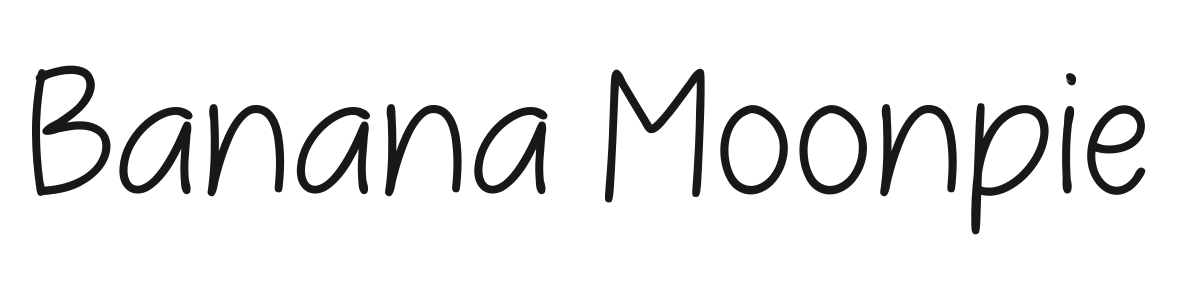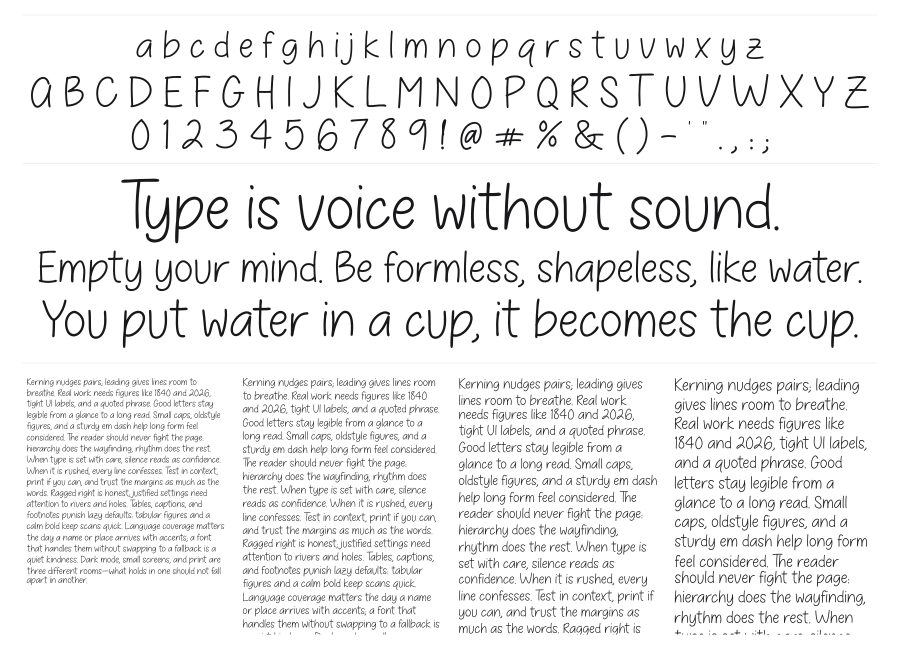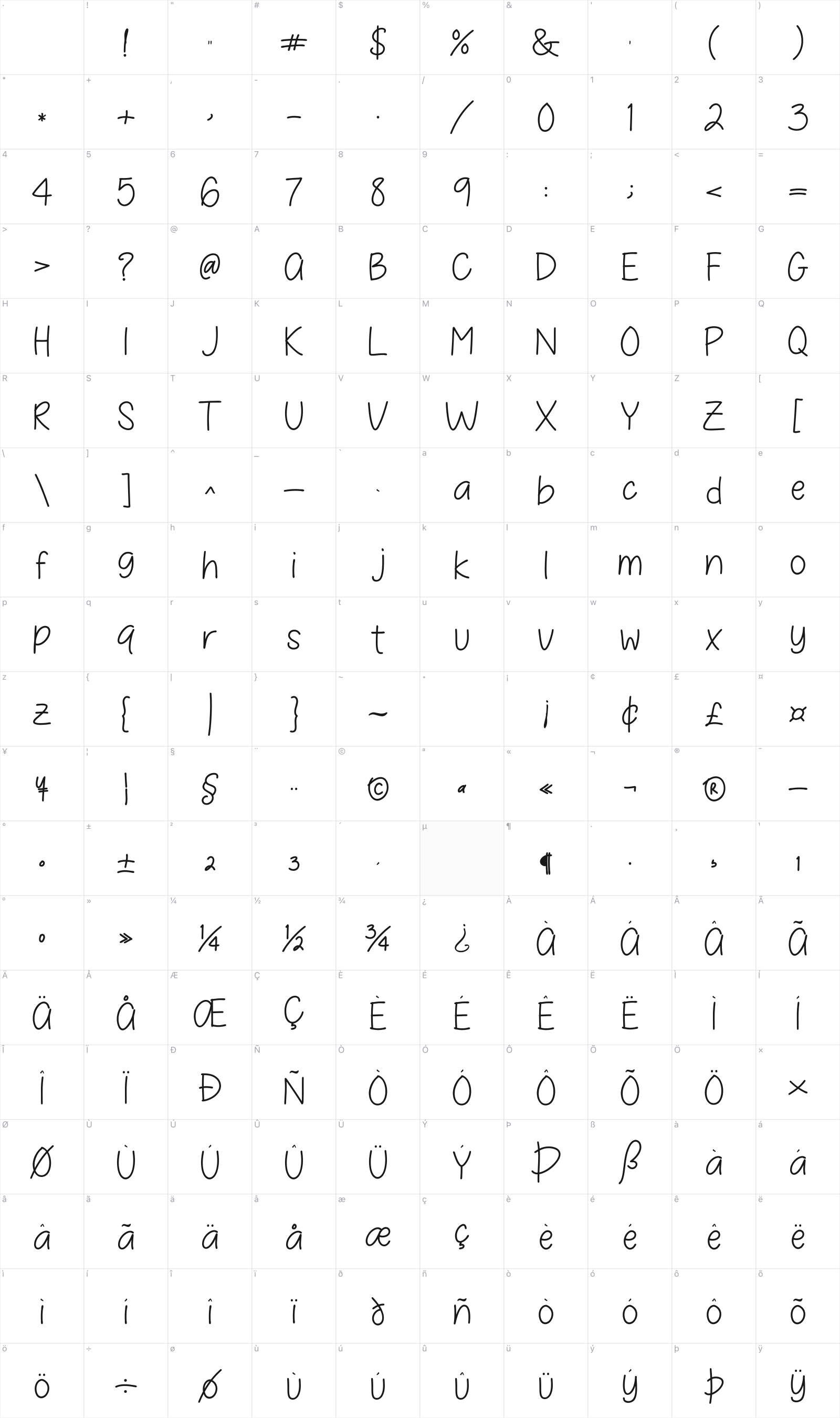
Banana Moonpie
Banana Moonpie is a casual handwritten sans-serif that sits at the intersection of loose penmanship and clean type design. The light strokes, rounded terminals, and natural letter rhythm give it a warm, approachable energy without tipping into messy. It works well wherever you need something friendly and human-feeling, from packaging labels to social media graphics.